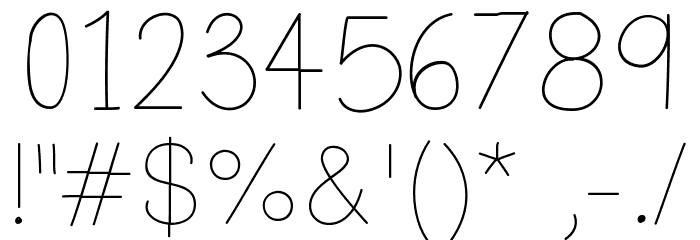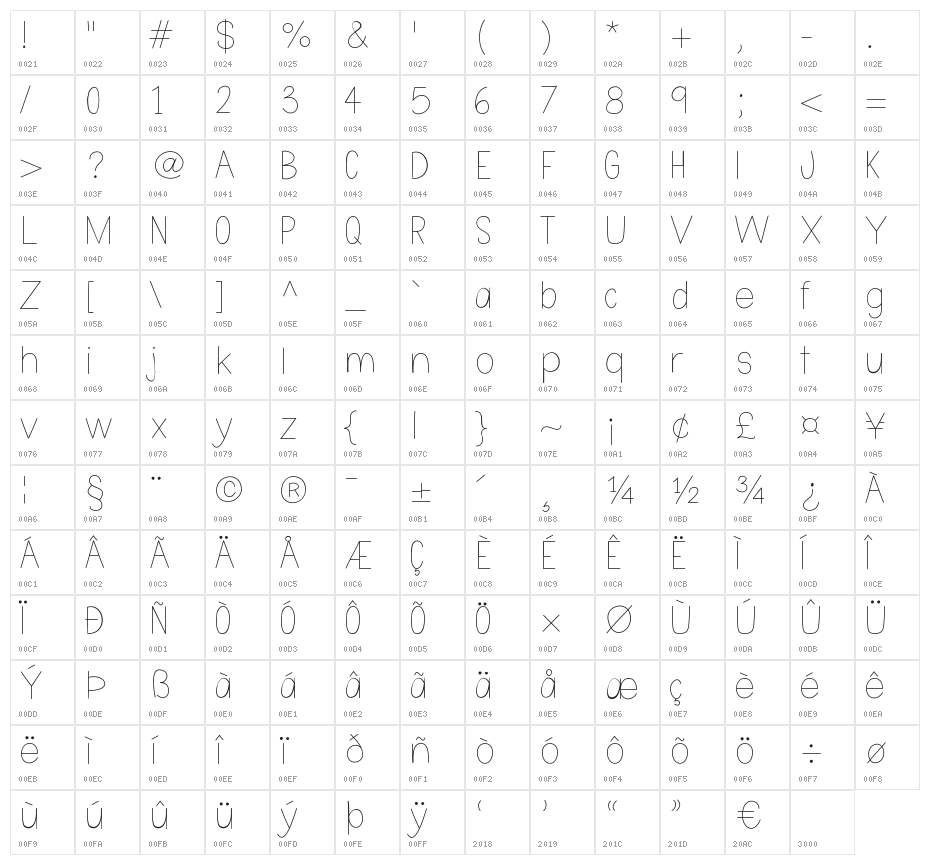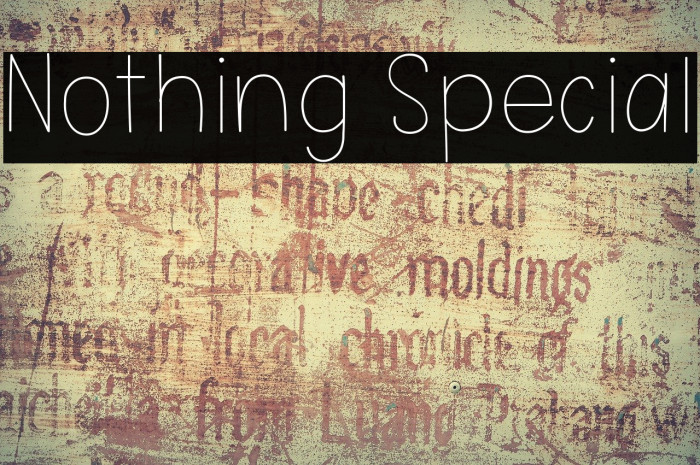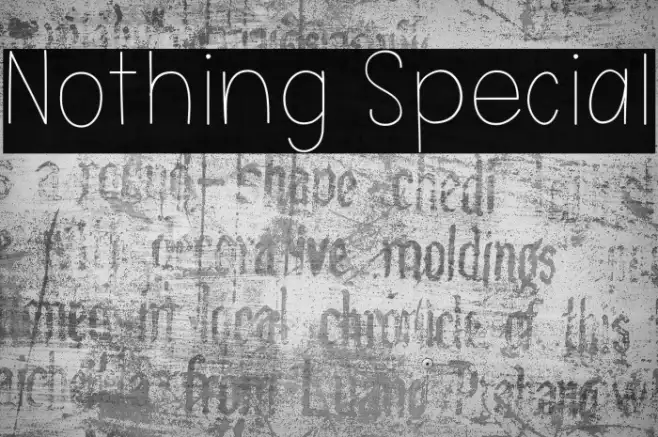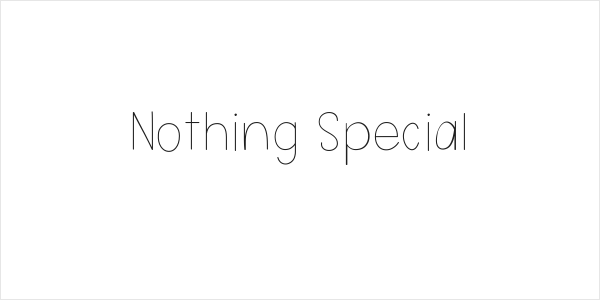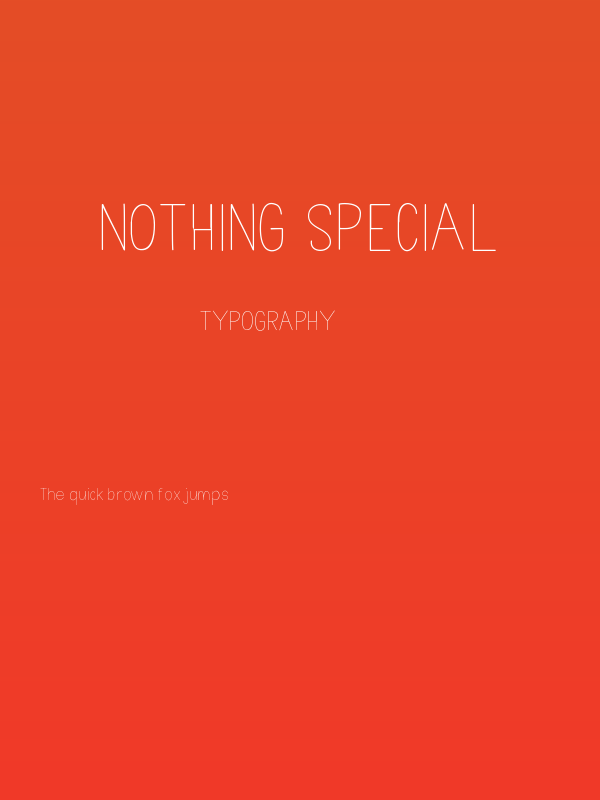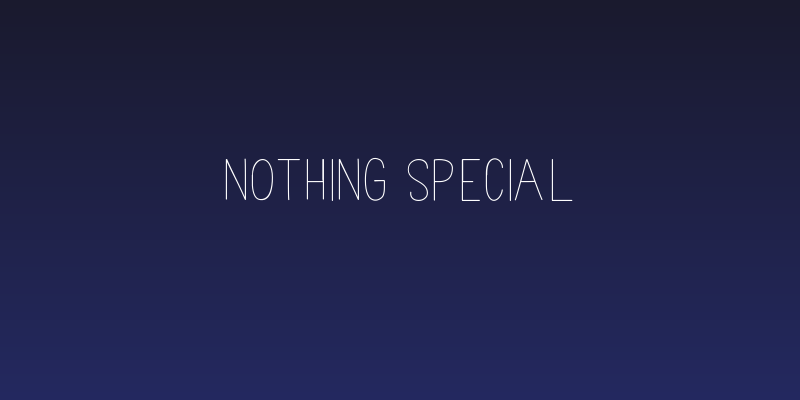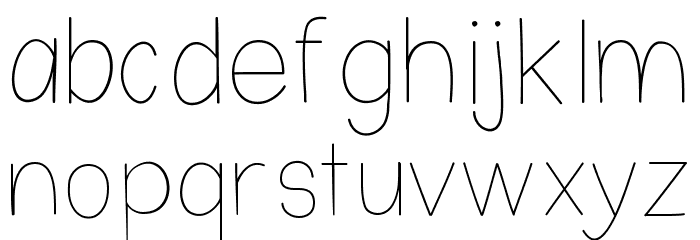
Nothing Special Font
Nothing Special Description
This font features a clean and minimalist design with thin, uniform lines that give it a modern and airy feel. The characters are evenly spaced and maintain a consistent height, contributing to its legibility. The uppercase letters are tall and slender, while the lowercase letters have a slightly rounded appearance, adding a touch of softness to the overall look. The numerals are straightforward and align well with the alphabet, maintaining the font's cohesive style. Special characters are designed with the same thin strokes, ensuring they blend seamlessly with the rest of the font. This font is versatile, suitable for both digital and print media.